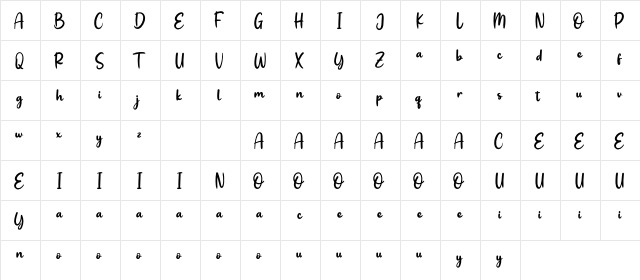
Safari Personal Use
Design Context for Safari Typeface
Safari is a composed and adaptable typeface that performs quietly and consistently across a wide range of design contexts.